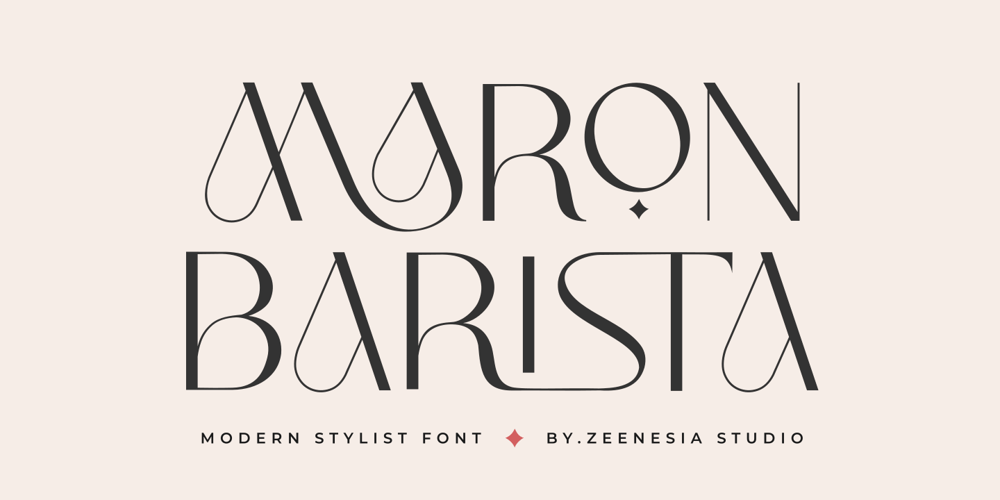
Maron Barista Font Family was designed by Doni Purwoko and published by Zeenesia Studio. Maron Barista contains 1 styles and family package options. Maron Barista is a beautiful and smooth sans serif font created by a romantic and lovely look. It is perfect for greeting cards, wedding invitations, posters, logotypes, product branding, and much more.This font is PUA encoded, which means you can access all of the glyphs and swashes with ease!